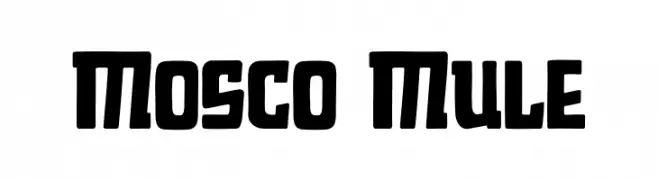
A decorative, medieval-style font with ornate uppercase and bold lowercase letters.
A bold, decorative font with medieval-inspired flourishes.
An elegant and decorative script font with flowing, interconnected letterforms.
A bold, brush-style font with a hand-painted, artistic look.
A bold, playful font with blocky, rounded characters.
A playful, hand-drawn font with thin, uneven strokes and a whimsical style.
A decorative font with characters illustrated as various alcoholic beverages.
A modern, stencil-like font with a geometric and industrial design.
A bold, geometric font with a modern yet retro feel, perfect for headlines.
A bold, modern sans-serif font with clean lines and uniform strokes.